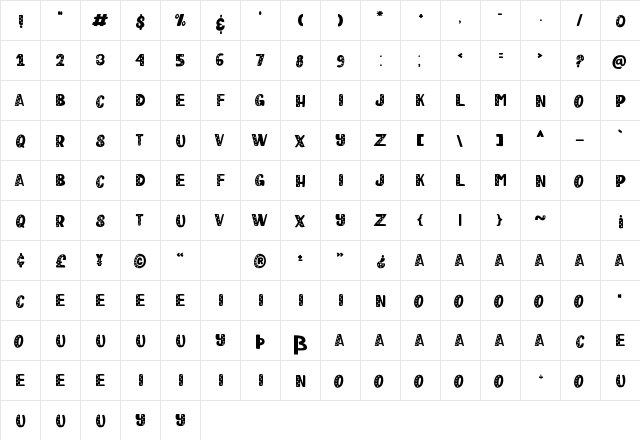
Happy Clover Leaf Display Regular
Design Context for Happy Clover Leaf Display Typeface
Happy Clover Leaf Display is built around its visual character rather than neutral utility — its distinctive forms are designed to make an impression at display sizes.
Font Pairing: Pair with a clean neutral sans-serif for body copy to let Happy Clover Leaf Display's character lead without overwhelming the composition.
Pro Tip: Treat Happy Clover Leaf Display as the centrepiece of your typographic hierarchy. One strong heading set in a decorative face can carry an entire layout.